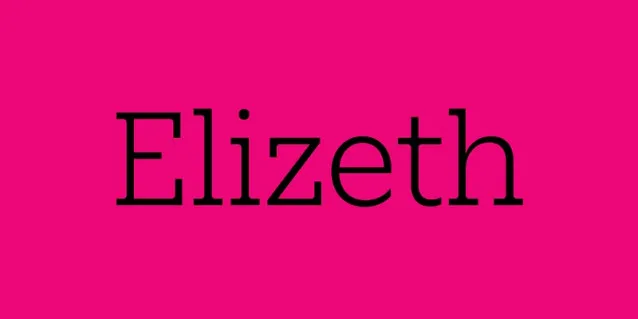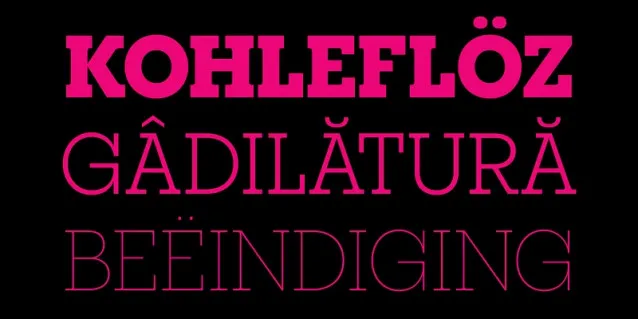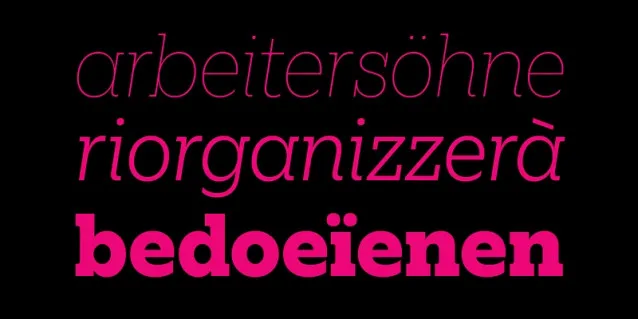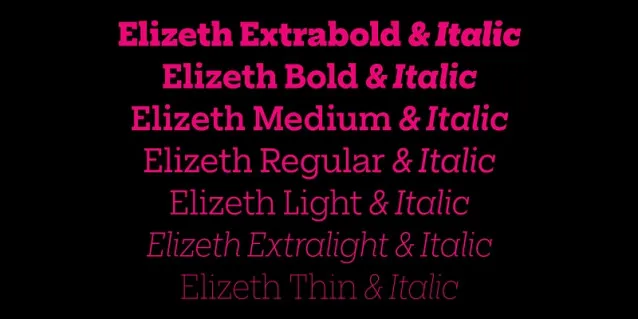
About Elizeth Font
As a typographer and graphic designer, I’m always looking for typefaces that feel original yet functional. I discovered the Elizeth Font while exploring Daniel Sabino at Adobe Fonts, and it immediately caught my attention. Its balance between geometric structure and soft seriffed edges made it ideal for my latest branding project.
I used it in a tech-inspired logo design, and it delivered a clean, modern, and timeless look. Writing this review feels right because I genuinely enjoyed how the Elizeth Font Family performed across print and digital layouts. It’s one of those rare finds that blends clarity with real creative charm.
The Font Type and Designer
The Elizeth Font is a geometric slab serif designed with precision and care. Created by Blackletra, a type foundry established in 2012, it reflects thoughtful craftsmanship. Daniel Sabino, the designer behind this typeface, is known for his attention to detail and love for classic forms reimagined for modern use. This font family includes two widths and seven weights, offering flexibility for different design applications.
Unlike many slab serifs, Elizeth stands out for its subtle curvature and well-defined proportions. It bridges traditional and contemporary design, echoing early 20th-century rationalism while maintaining a modern appeal. The Elizeth condensed version provides a compact option for tight layouts, while the standard width feels open and balanced. The seriffed structure adds elegance, while the clean geometry ensures clarity in both titles and paragraphs.
Elizeth Font Family supports a wide range of languages including Kala Lagaw Ya, Tok Pisin, Meriam Mir, Scottish Gaelic, Crimean Tatar, Guadeloupean Creole, Inari Sami, Lule Sami, Northern Sami, Southern Sami, Lower Sorbian, and Upper Sorbian. It also extends to Romansh, Catalan, Tetum, Turkmen, and more. This broad language support reflects the designer’s commitment to inclusivity and usability worldwide. Fonts like Ofelia and Elizeth show why Blackletra Type Foundry has become a trusted name among professionals.
Features of The Elizeth font family
The Elizeth Font brings versatility and craftsmanship together. Its geometric slab serif construction makes it suitable for everything from logos to magazines. The Elizeth Font Family includes bold, regular, and light variations that adapt easily to branding, packaging, and editorial layouts. It’s clean enough for minimal design but has enough personality to stand out.
Each character features balanced contours and thoughtful bracketed serifs, giving it a steady rhythm across text. The broad language support extends across languages like Sotho, Galician, Estonian, Friulian, Tswana, and even regional ones like Ladin, Ndebele, Karelian, and Kashubian. This makes Elizeth ideal for multilingual projects or global brands that need design consistency.
When you install the fonts, you’ll notice how well they embed in both print and digital formats. The kerning feels precise, and the two widths and seven weights allow for structured hierarchy in layouts. Designers using Cricut or digital tools will find it easy to work with due to its smooth rendering and legible spacing. It pairs well with minimalist visuals or complex editorial grids. If you enjoy fonts like Ofelia, you’ll appreciate how Elizeth captures the same precision but adds warmth.
You can use it in luxury branding, modern book covers, digital campaigns, or user interfaces that need clarity. Its seriffed texture adds a touch of refinement to logos, while the condensed weight is ideal for headlines and print materials. Businesses can rely on it for bilingual or multilingual communications since it supports languages such as Uzbek, Sango, Faroese, Chavacano, and Bislama.
Creative professionals can also explore it in cultural or educational projects involving languages like Mirandese, Aymara, Rotokas, Tumbuka, or Tsonga. The design works just as well for Aragonese, Montenegrin, or Walloon scripts. Whether you’re crafting a magazine spread, a personal logo, or a clean web interface, the Elizeth Font will hold its integrity across formats.